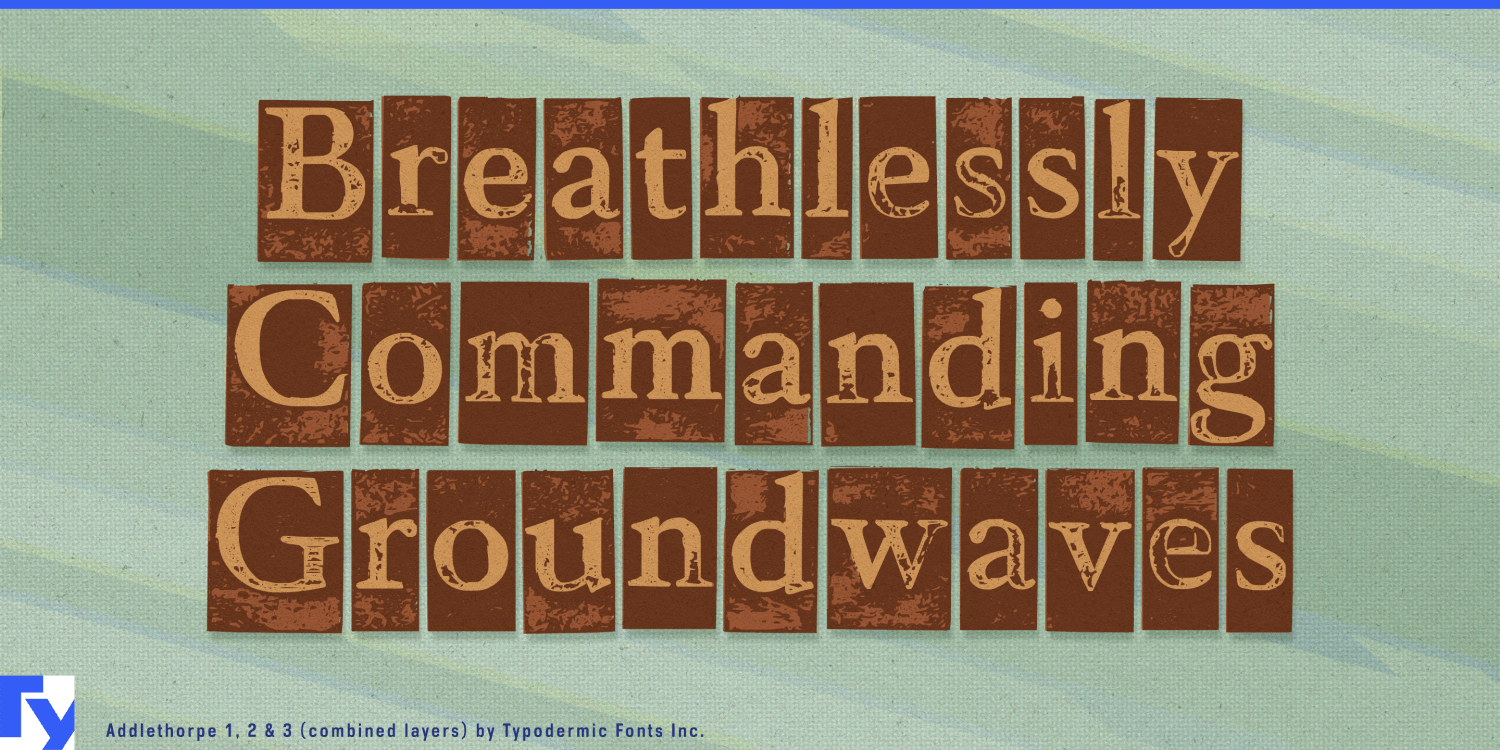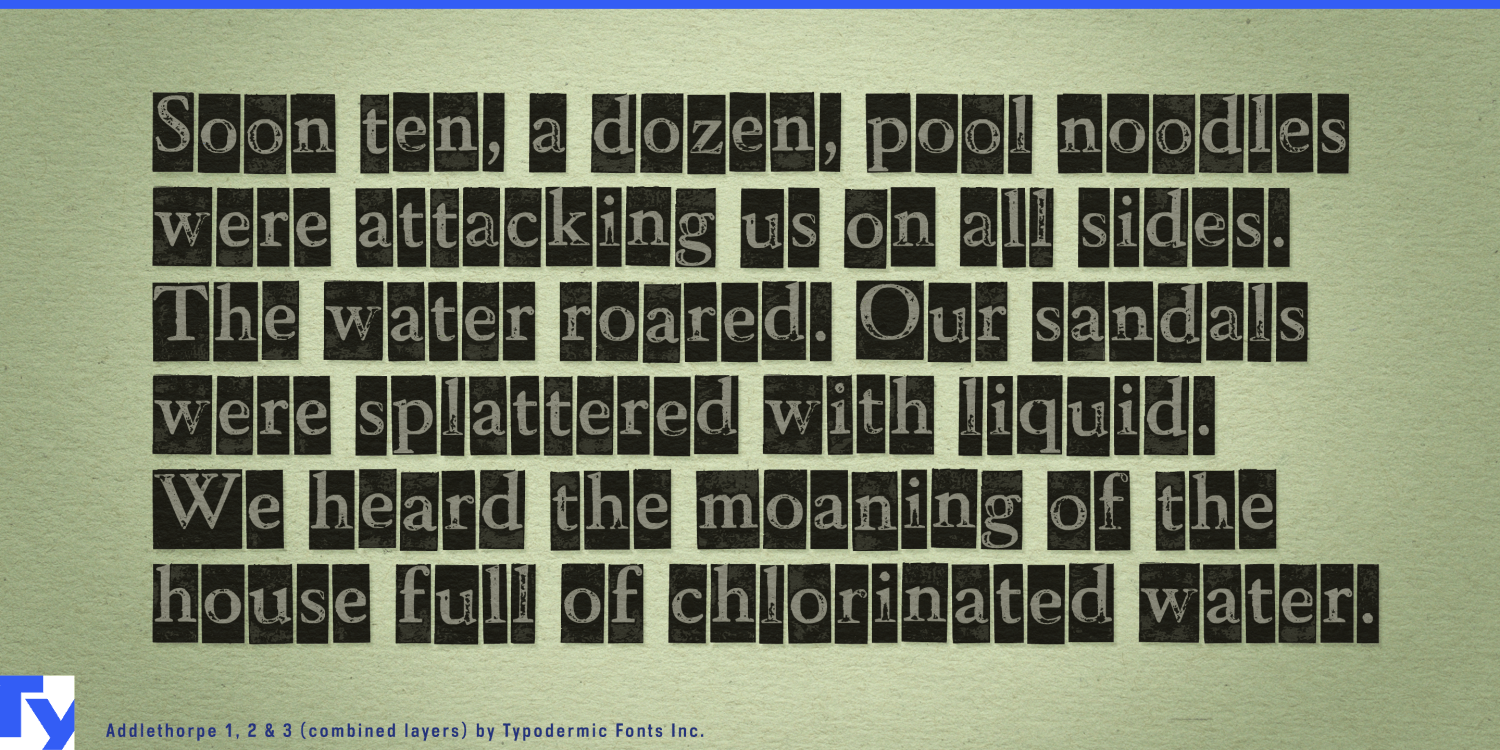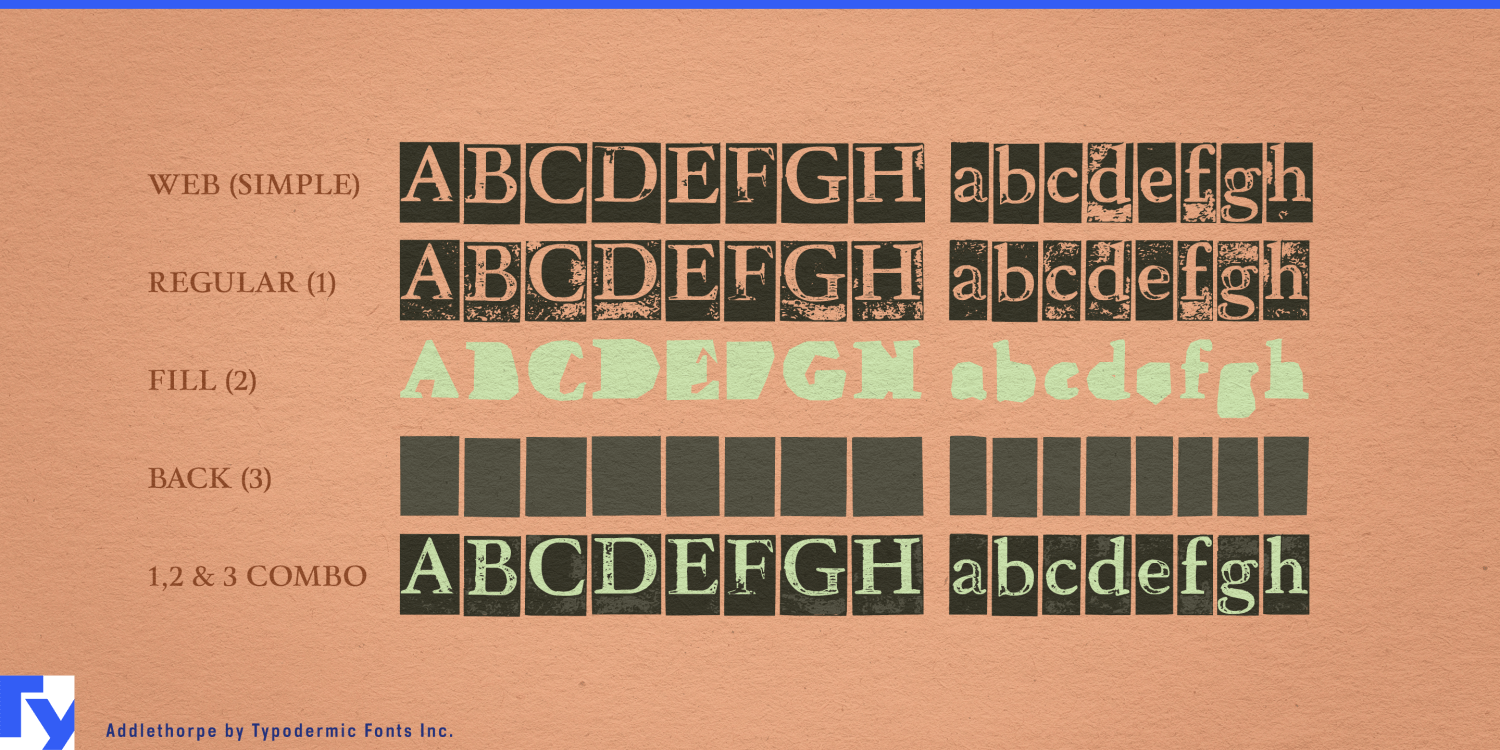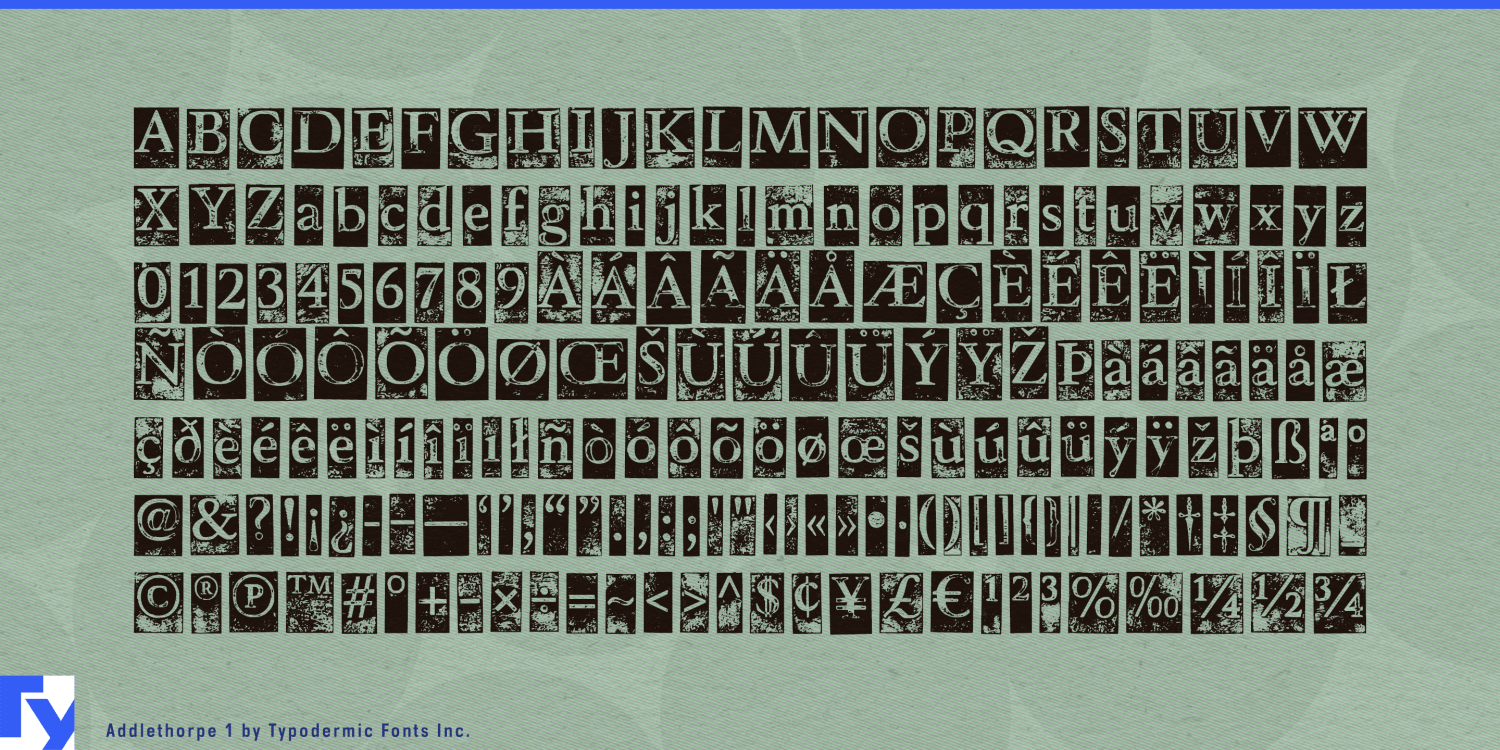
About Addlethorpe
Elevate your designs with Addlethorpe, a sophisticated three-layer metal typeface that redefines typographic elegance. This meticulously crafted font family offers a unique interplay of foreground, fill, and background layers, providing designers with…